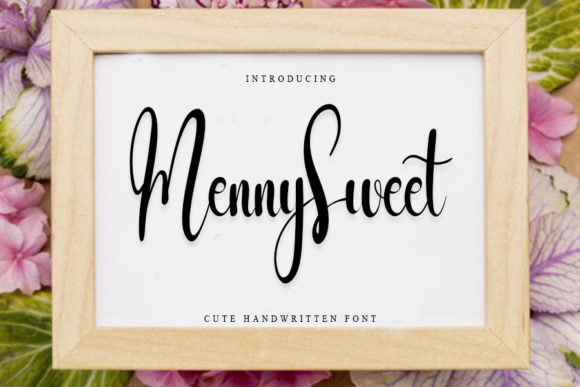
Introducing Menny Sweet Font, a calligraphic masterpiece designed to capture the essence of romance and joy. Crafted by ONE DESIGN, a renowned font foundry, Menny Sweet is a slender and delicate handwritten font that exudes elegance and charm. Whether you're a graphic designer, a creative entrepreneur, or simply someone who loves to express themselves through art, Menny Sweet is the perfect font to add a touch of sophistication and personality to your projects.
Immerse yourself in the world of Menny Sweet, where every stroke and curve is a testament to the beauty of handwritten typography. Its graceful lines and whimsical charm make it an ideal choice for creating stunning wedding invitations, heartfelt greeting cards, eye-catching social media posts, or any other design that demands a touch of elegance and authenticity. Let Menny Sweet transport you to a realm of creativity, where your words will dance on the page with grace and poise.
With Menny Sweet, you can effortlessly convey your message with a unique and personal touch. Its enchanting nature makes it perfect for crafting logos, branding materials, and social media content that resonates with your audience. Imagine your brand name or slogan written in the flowing strokes of Menny Sweet, leaving an unforgettable impression on everyone who encounters it.
But Menny Sweet is more than just a beautiful font; it's a versatile tool that can transform your creative vision into reality. Whether you're designing posters, flyers, brochures, or any other printed material, Menny Sweet will add a touch of sophistication and charm that sets your work apart from the rest. Its versatility extends to digital designs as well, making it an excellent choice for creating eye-catching website headers, blog posts, and social media graphics.
As a business owner, you understand the importance of making a lasting impression on your customers. Menny Sweet is the perfect font to help you achieve just that. Its elegant and professional appearance will add a touch of refinement to your business documents, presentations, and marketing materials. Whether you're crafting a proposal, a report, or a sales pitch, Menny Sweet will elevate your words and make your message unforgettable.